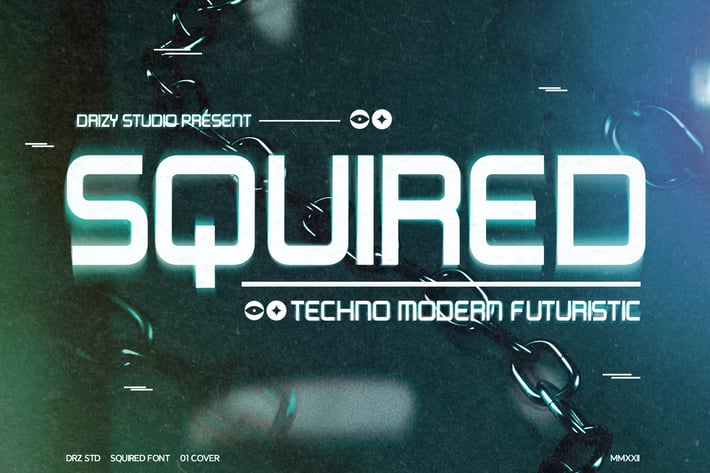
Squired - Modern Techno Font
Squired is a Modern Techno Font from Drizy studio. Offering all the basic styles you will need for a techno theme of your project.
Squired Features:
All Caps
Multilinguals